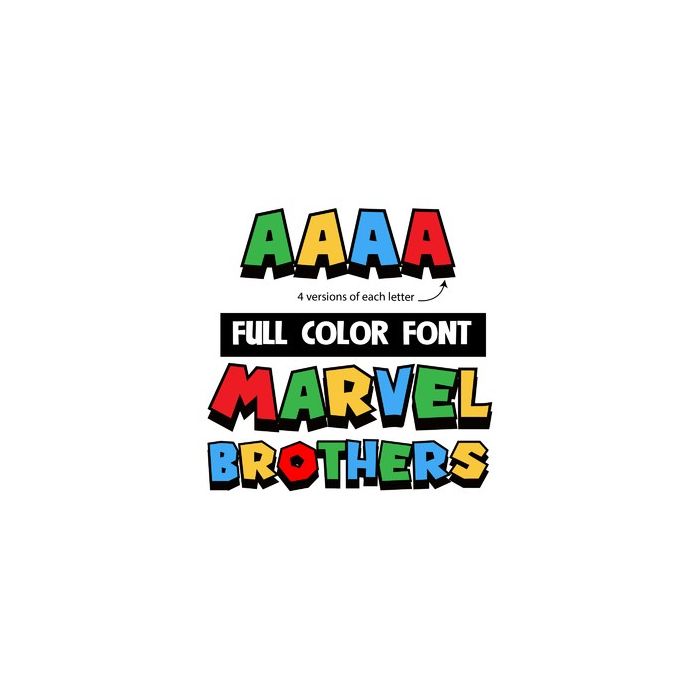
This full-color font features blocky video-game-esque lettering with heavy black shadows. There is an alt case you can access through Silhouette's glyph map.